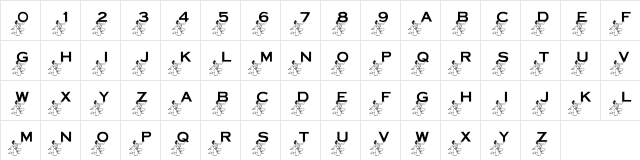
LMS Power In Your Corner Now brings high-energy athletic personality to the page - its confident, muscular forms are built for impact.
A natural choice for gym brands, fantasy sports, jersey lettering, and action-driven headlines.
Font Pairing: Use alongside a condensed or geometric sans for supporting copy - keep the pairing bold, functional, and free of ornament.
Pro Tip: Use LMS Power In Your Corner Now in all-caps headlines where its athletic energy can fully express itself. Pair with a solid, simple sans for supporting text.